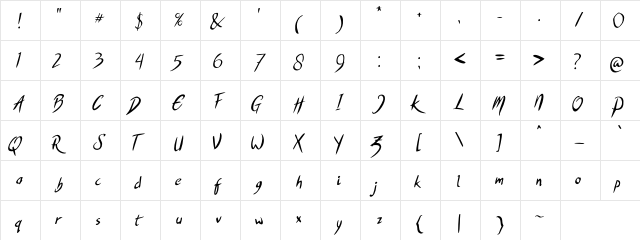
SnowBad Regular
| Foundry | IJEMSKULLPEN_PIRATE_FERDIANSYAH |
| Designer | IJEMSKULLPEN_PIRATE_FERDIANSYAH |
Design Context for SnowBad Typeface
SnowBad is a composed and adaptable typeface that performs quietly and consistently across a wide range of design contexts.